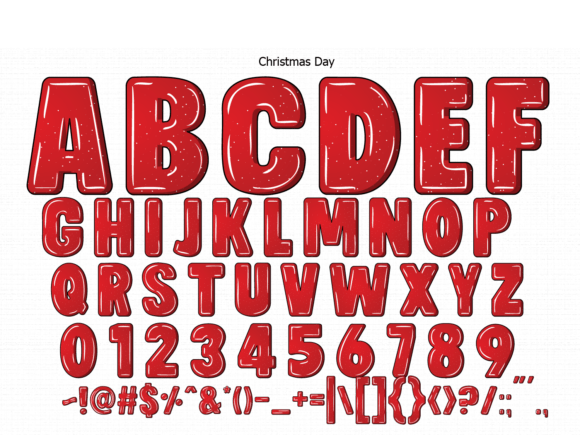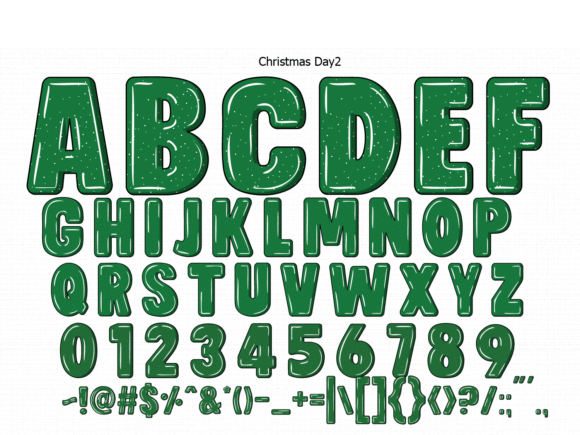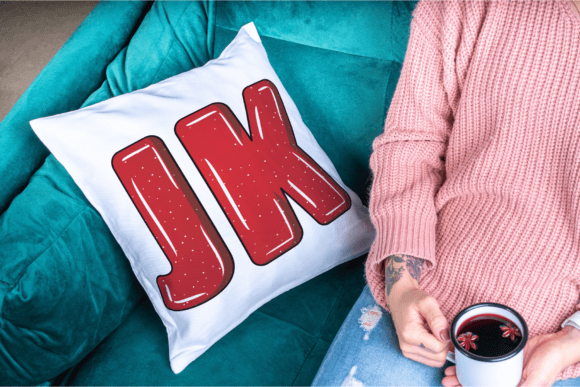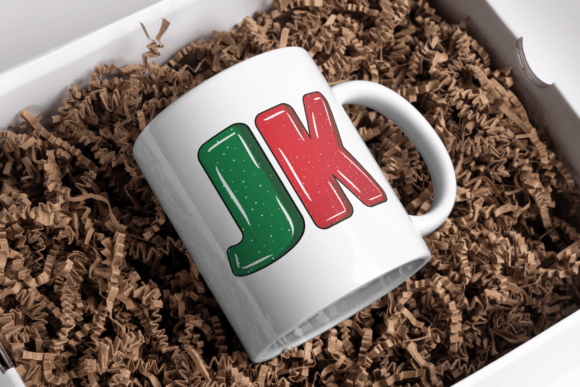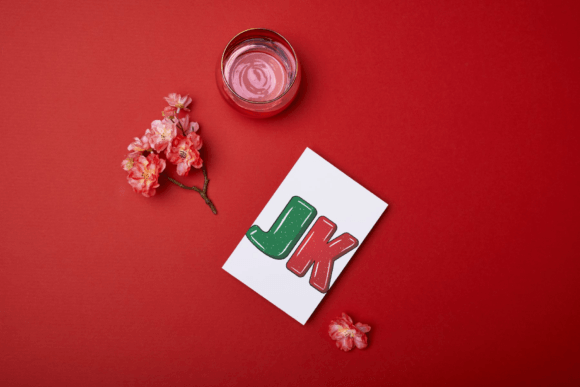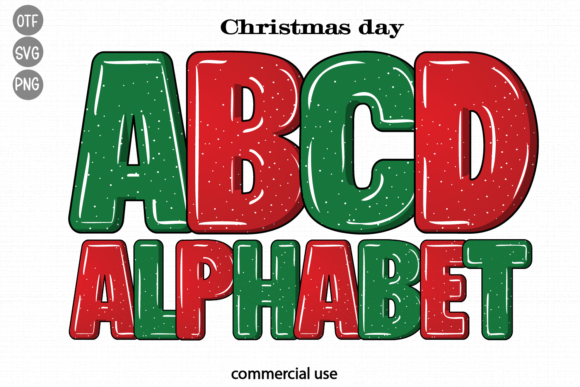
Deck the Halls with Christmas Groovy Light: The Ultimate Christmas Day Font
It’s the most wonderful time of the year! As designers and crafters, we’re always on the lookout for the perfect fonts to make our holiday projects shine. Look no further than Christmas Groovy Light, a fun and bubbly font that’s sure to add a groovy touch to your Christmas designs.
A Retro-Chic Christmas Font
Christmas Groovy Light is a playful font that’s perfect for creating festive cards, posters, and decorations. The letters are designed to give off a retro, cheerful vibe that’s sure to put a smile on anyone’s face. With its bright colors and fun design, this font is ideal for adding a touch of holiday magic to your projects.
What Makes Christmas Groovy Light So Special?
With Christmas Groovy Light, the design possibilities are endless! Use it to create:
- Festive cards and invitations for your holiday party
- Eye-catching posters and flyers for your business or event
- Decorative signs and banners for your home or office
- Fun and playful holiday crafts, such as gift tags and garlands
Tips and Tricks for Using Christmas Groovy Light
To get the most out of Christmas Groovy Light, here are a few tips and tricks to keep in mind:
- Experiment with different colors and combinations to make your design pop
- Use the font in combination with other design elements, such as images and graphics, to create a unique look
- Don’t be afraid to get creative and try out new and unusual design ideas
Why Designers and Crafters Love Christmas Groovy Light
So, why do designers and crafters love Christmas Groovy Light? Here are just a few reasons:
- It’s fun and playful, making it perfect for holiday designs
- It’s retro-chic and on-trend, adding a touch of style to any project
- It’s easy to use and compatible with a range of design software
Christmas Groovy Light is the perfect Christmas Day font for designers and crafters who want to add a touch of holiday magic to their projects. With its playful design, bright colors, and compatibility with a range of design software, it’s the ideal choice for creating festive cards, posters, and decorations. So why wait? Get your hands on Christmas Groovy Light today and make your holiday designs shine!